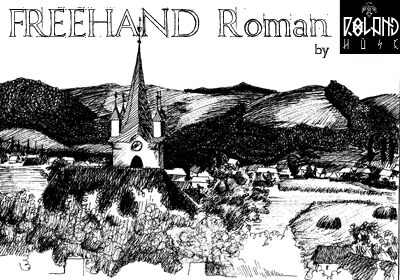
Freehand Roman by Roland Huse is a free eroded outline display font with the tall proportions and sharp serifs of classical inscriptional lettering. Fine doubled contours and scattered breaks give the strokes a weathered, hand-inked edge.
Designers working on historical or literary themes can use it for book covers, museum posters, and theatrical programs, where the worn Roman forms suggest an aged artifact. It also suits wine labels and heritage branding, making the lettering part of the period imagery.
FREEHAND ROMAN was created by Roland Huse as a homework assignment in 1994 at Avasi High School.